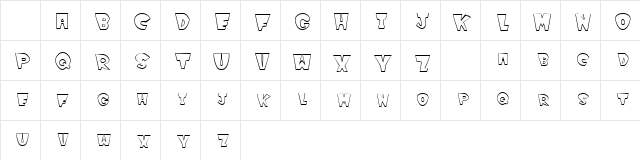
WinksOutline Regular
Design Context for WinksOutline Typeface
WinksOutline is built around its visual character rather than neutral utility — its distinctive forms are designed to make an impression at display sizes.
Font Pairing: Pair with a clean neutral sans-serif for body copy to let WinksOutline's character lead without overwhelming the composition.
Pro Tip: Treat WinksOutline as the centrepiece of your typographic hierarchy. One strong heading set in a decorative face can carry an entire layout.